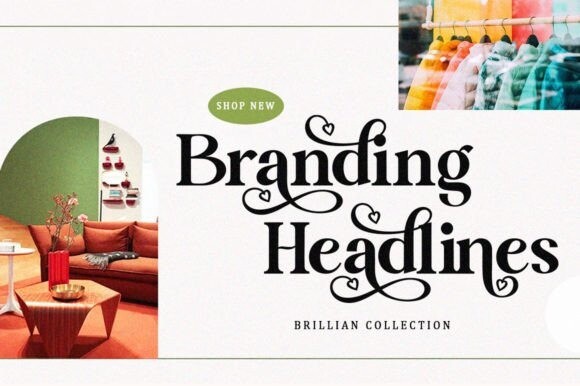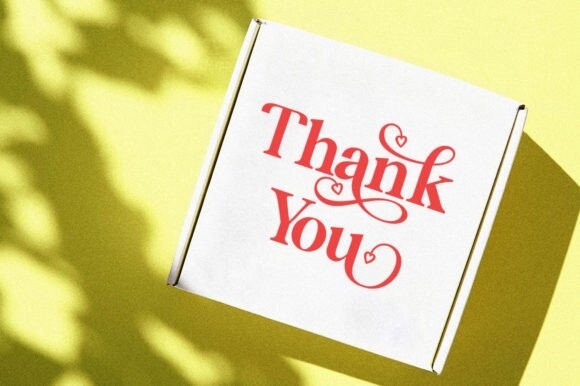
Madden Font
Madden Font is a versatile lovely serif font. This font is characterized by a serif style with a luxurious style in the form of a love style, but also has a friendly and playful style in bold, Madden has glyphs to give the crafter more options in designing. This love style will make the design look more classy, elegant, unique, and edgy.
Madden is a font suitable for many projects, modern or even retro vintage designs, branding, logos, crafts, stickers, sublimation, wedding invitations, and more. This font is suitable for a variety of projects such as logos, branding, magazines, signage, fashion, and many more.